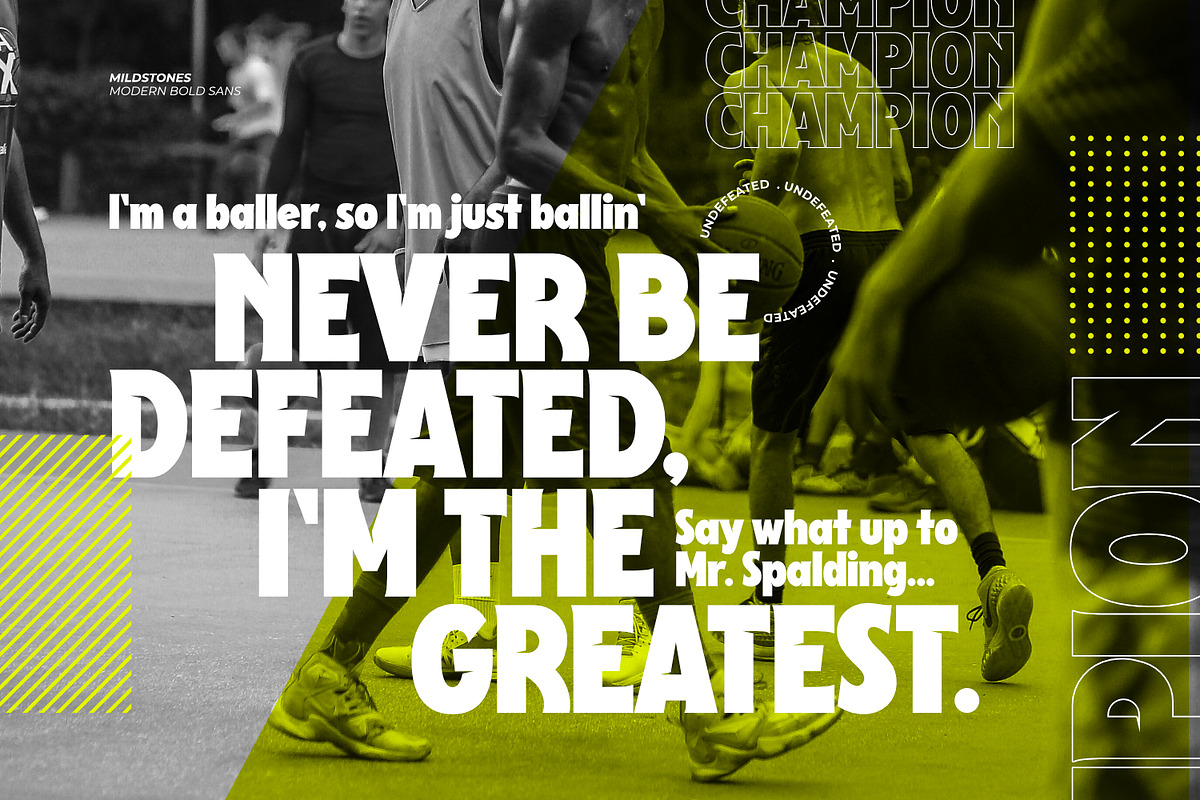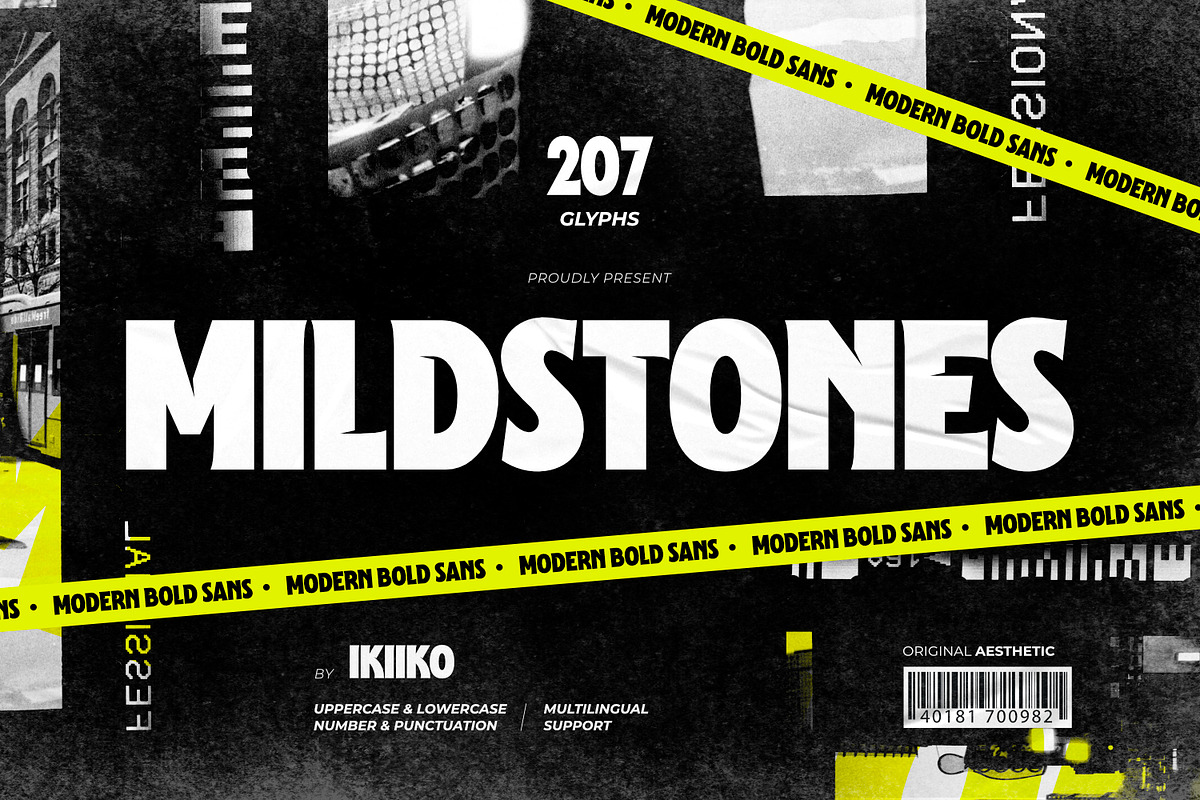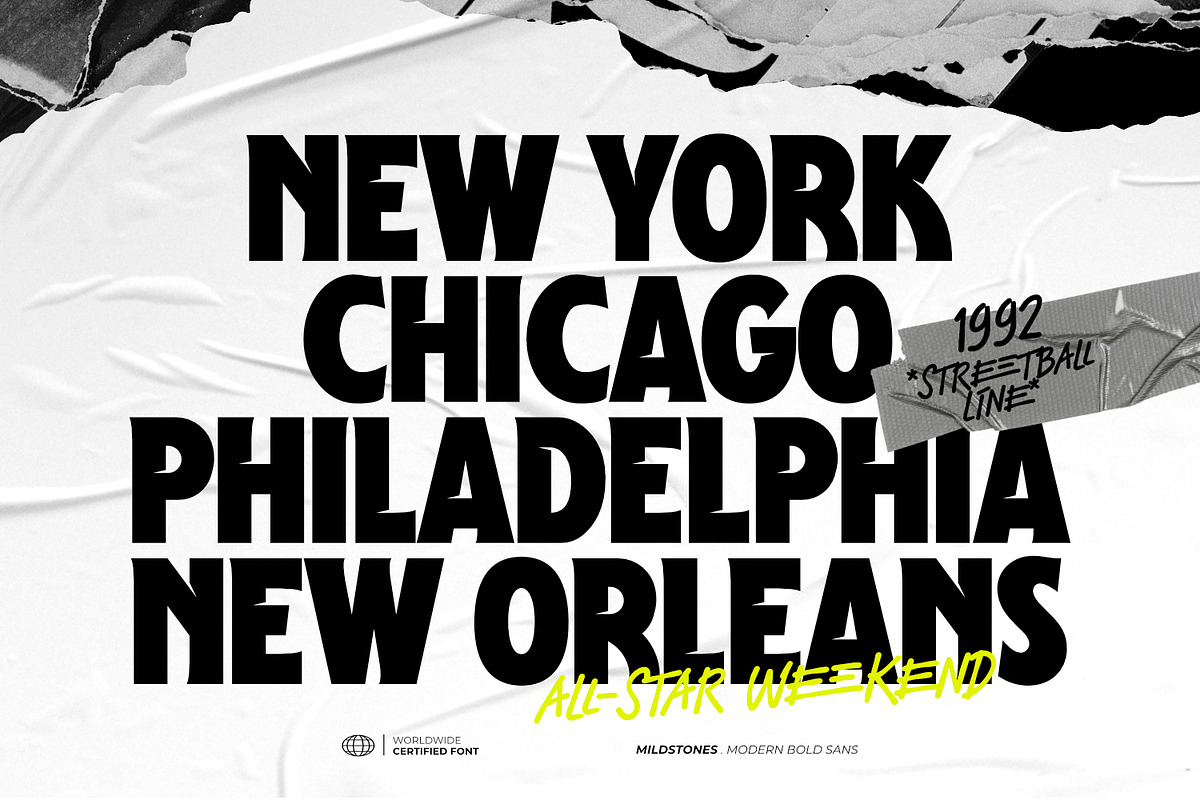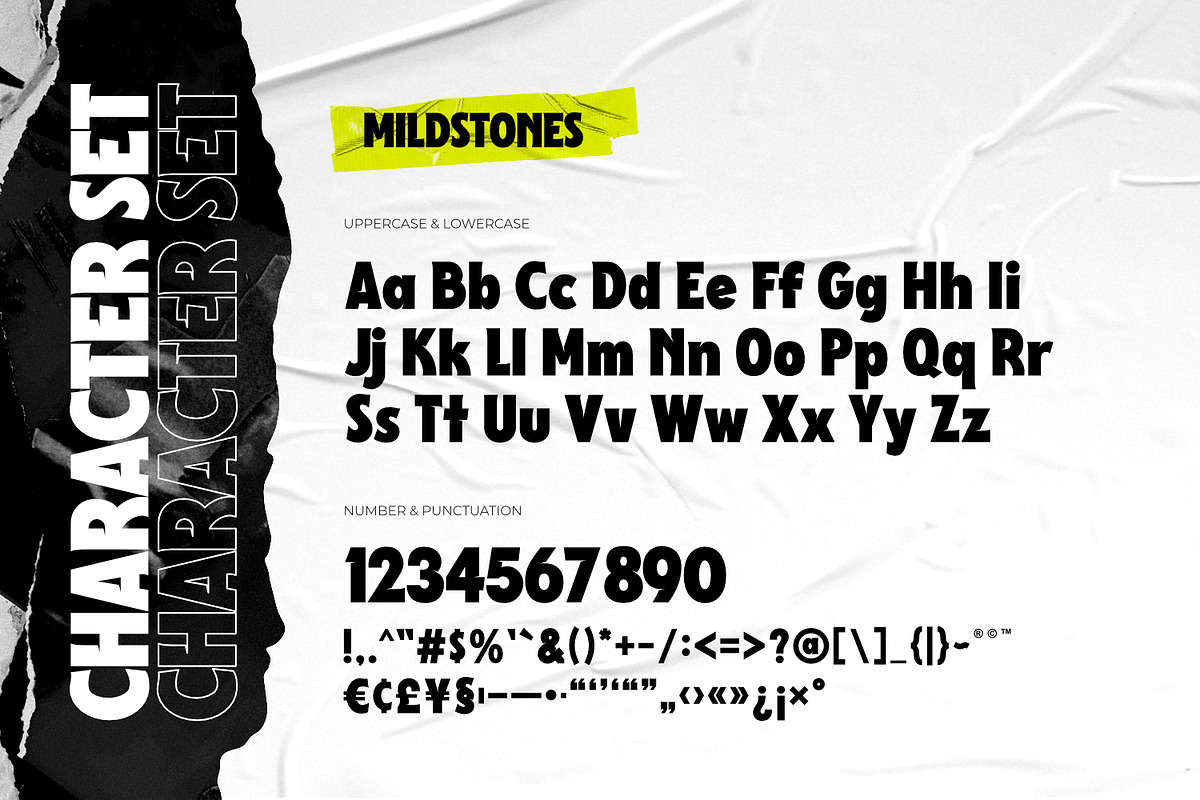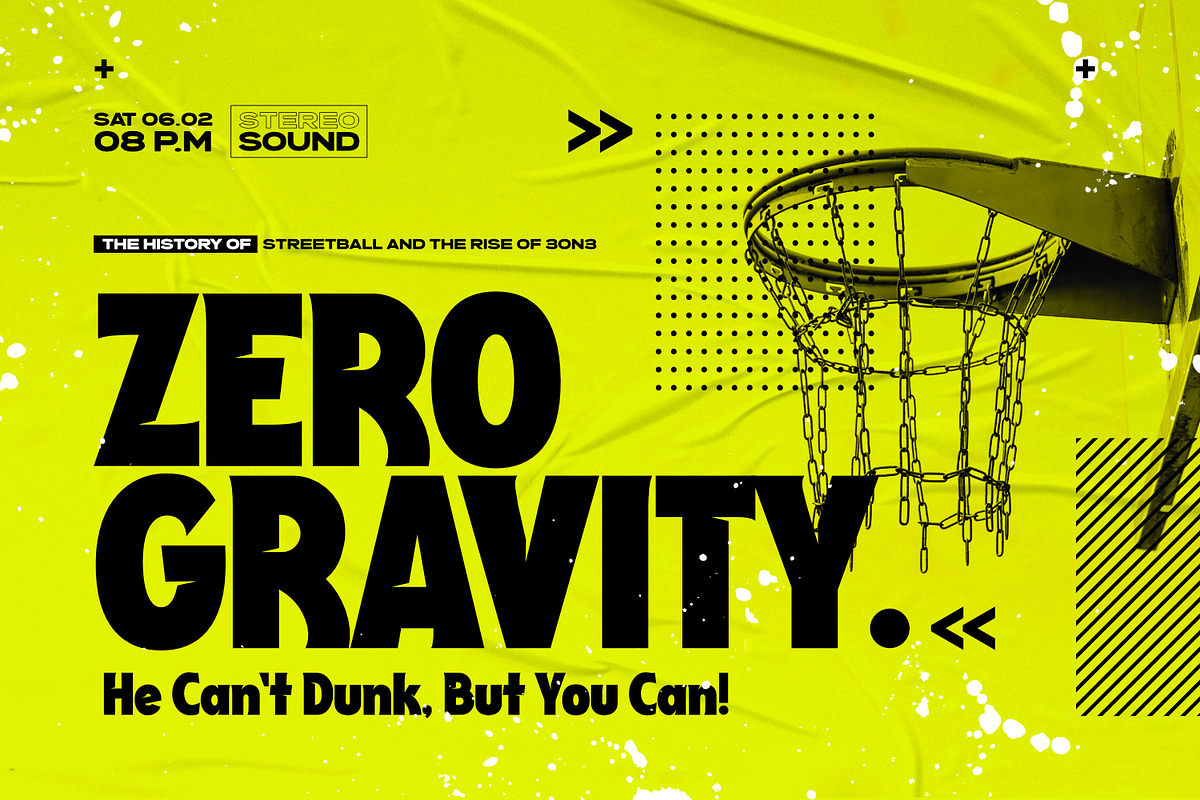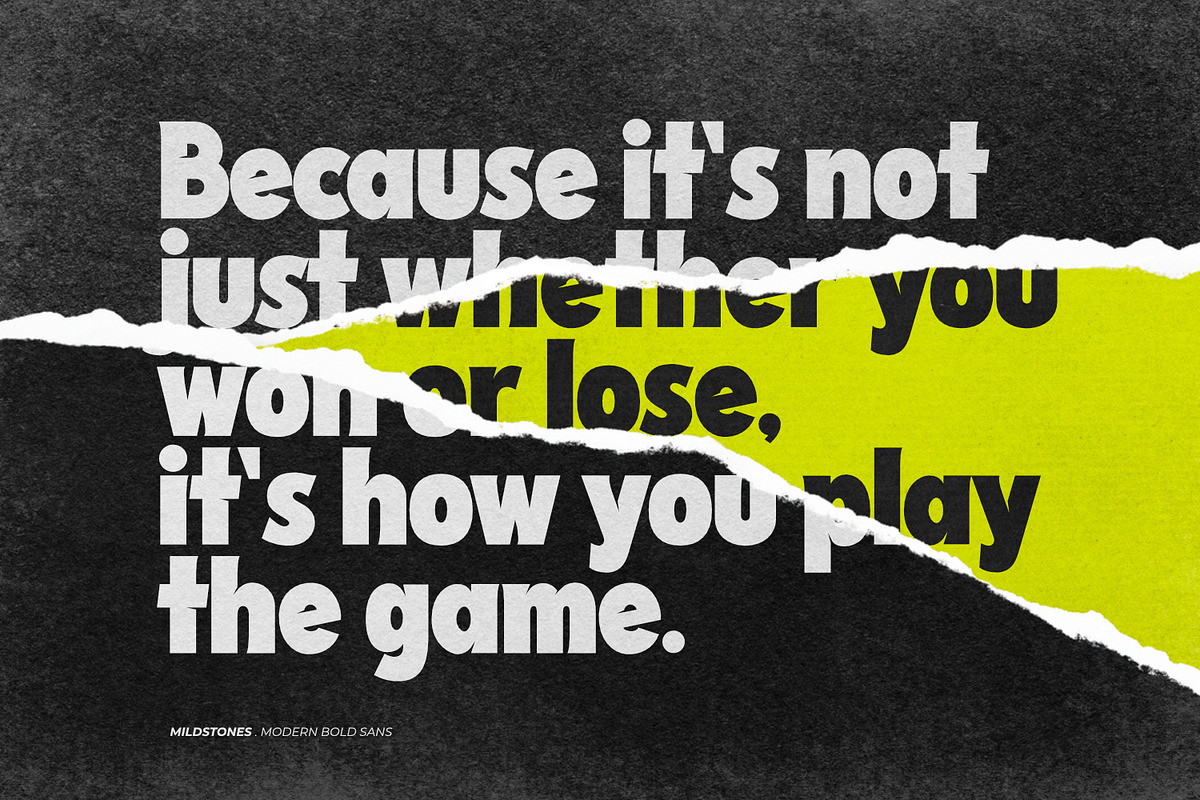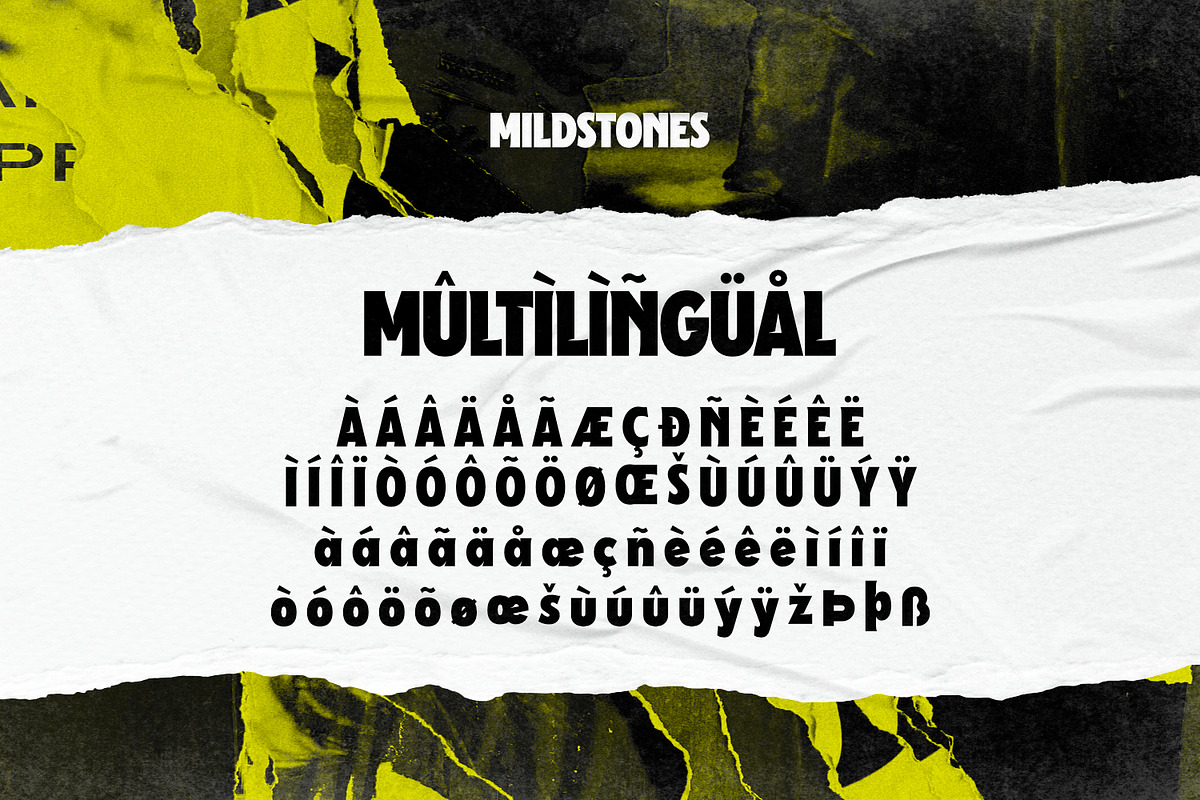
Mildstones - Modern Bold Sans
Proudly present Mildstones - Modern Bold Sans, created by ikiiko.
A contemporary bold condensed sans serif typeface created to breathe life into headlines with its eye-catching presence. Mildstones attracts attention and takes any design project to a new level with its striking and fashionable look.
Each letter in Mildstones has undergone meticulous design in order to convey a sense of power, assurance, and beauty. The font has a sense of verticality and compactness due to the condensed proportions, which also make it easy to fit into small places while keeping outstanding readability. The Mildstones experience is more than simply a font. It has been meticulously designed to be a dependable and powerful typographic in terms of both aesthetic and readability.
This type is very suitable for making a headline news, sport advetorial, logotype, branding, poster, magazine layout, quotes, or simply as a stylish text overlay to any background image.